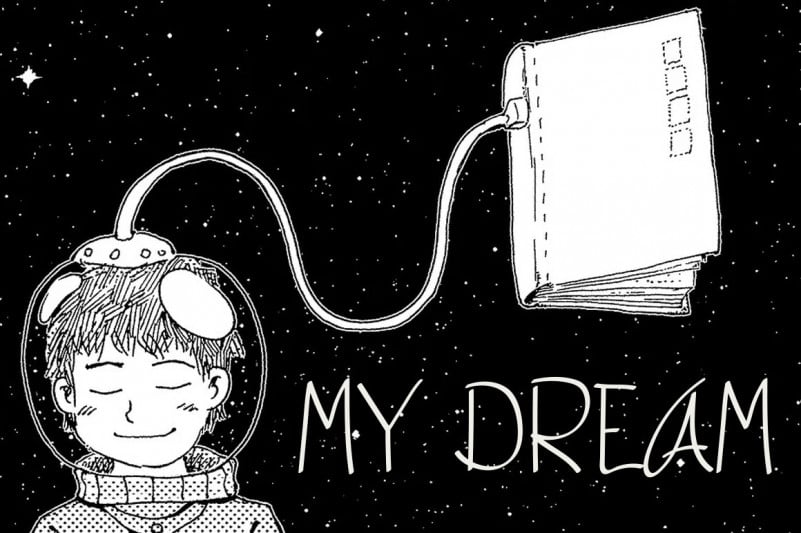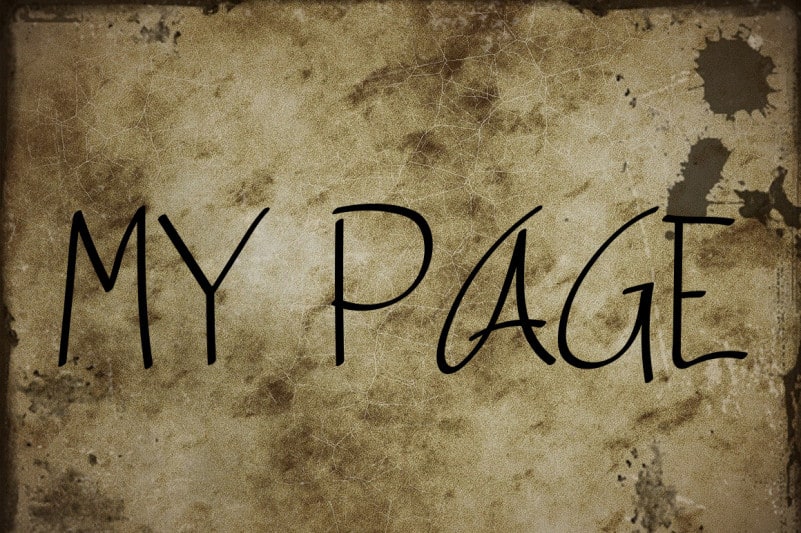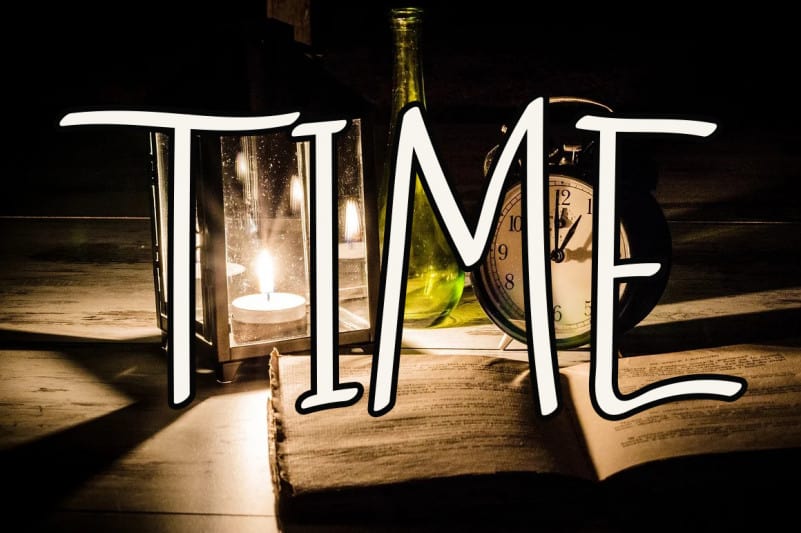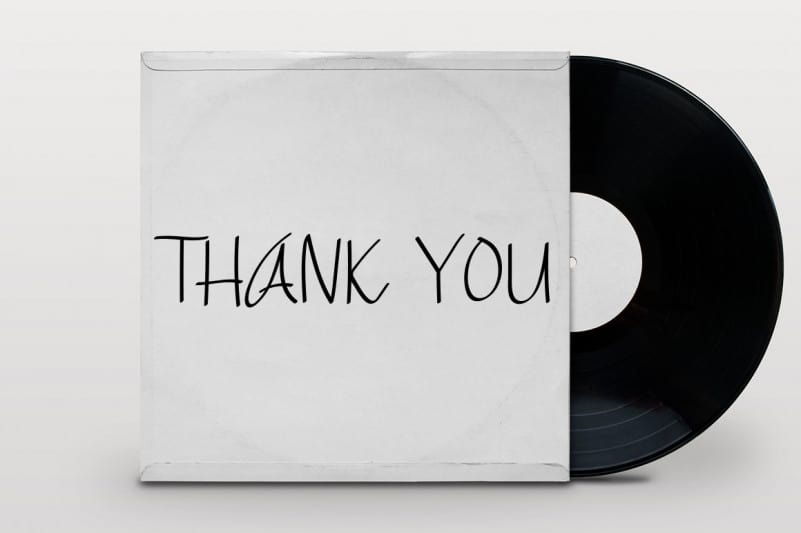
My Castle Font
My Castle Font is a relaxed and fresh handwritten font. Its natural and unique style makes it incredibly fitting to a large pool of designs. The only limit is your imagination!
Latest letters that can be used for various products, invitations, wall hangings, weddings, and more.